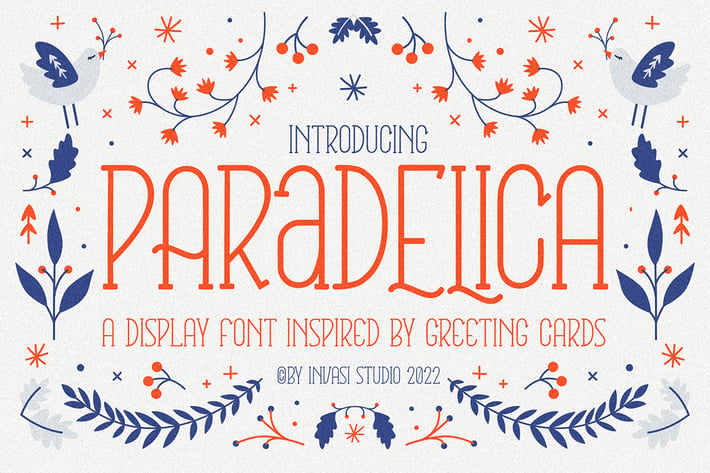
Paradelica - Greeting Display Font
It is the holiday season, so let's get a bit fancy. So, we present the Paradelica Display font with a playful and elegant design. A festive and stylish font with a vintage vibe, this is perfect for creating display pieces like logos, posters, and greeting cards. Available in Caps only. Comes with alternates, ligatures, multi-language support, and optional decorative symbols.
- Uppercase & Lowercase
- Alternate & Ligatures